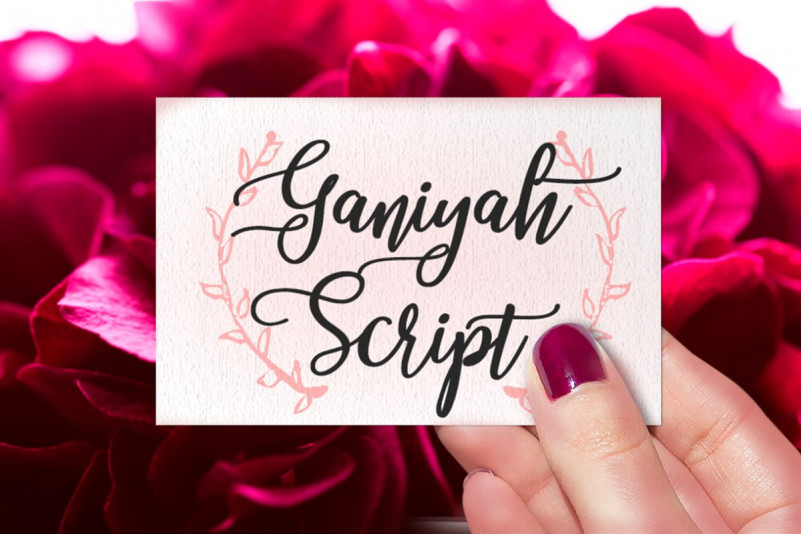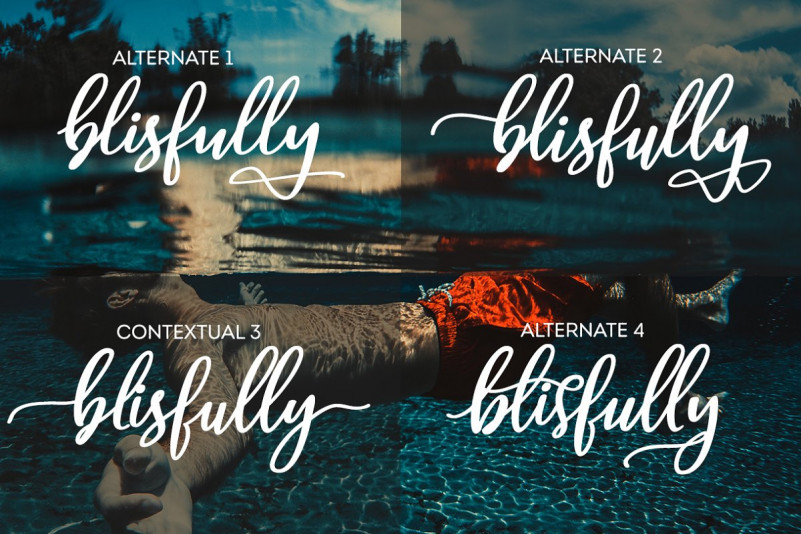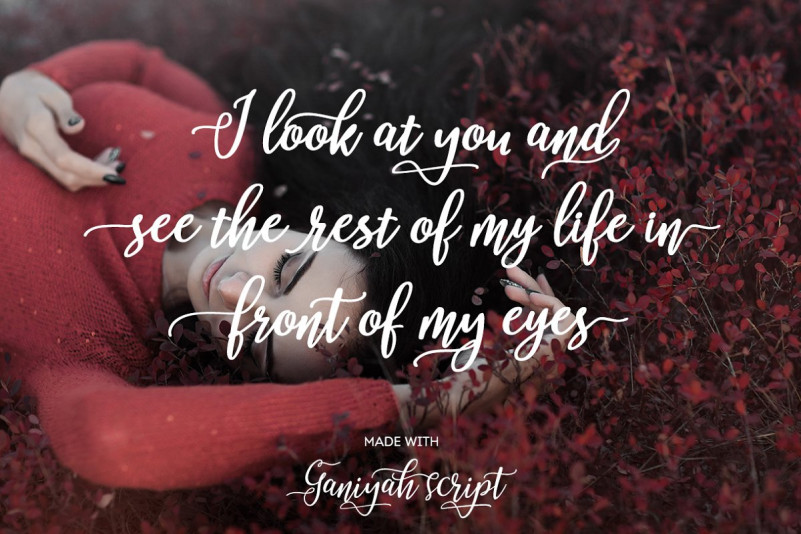
Ganiyah Font
Introducing: Ganiyah Script A fantastically elegant connected script, making it possible for you to trigger beautiful hand-made calligraphy in an immediate. With much more bouncy curves & loops, Ganiyah Script is guaranteed to make your textual content stand out – best for emblems, revealed costs, invitations, cards, product packaging, headers and also anything your creativeness holds.